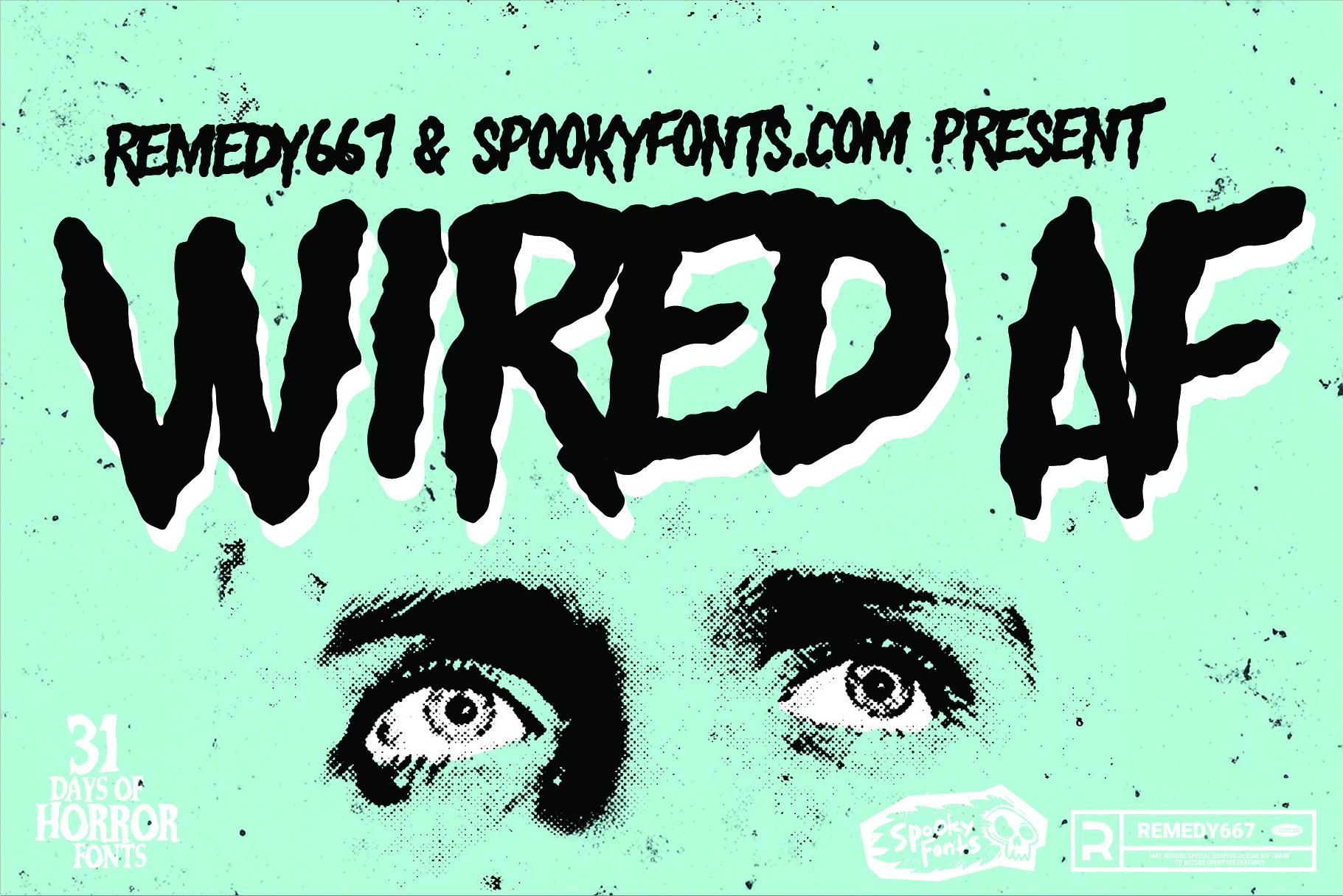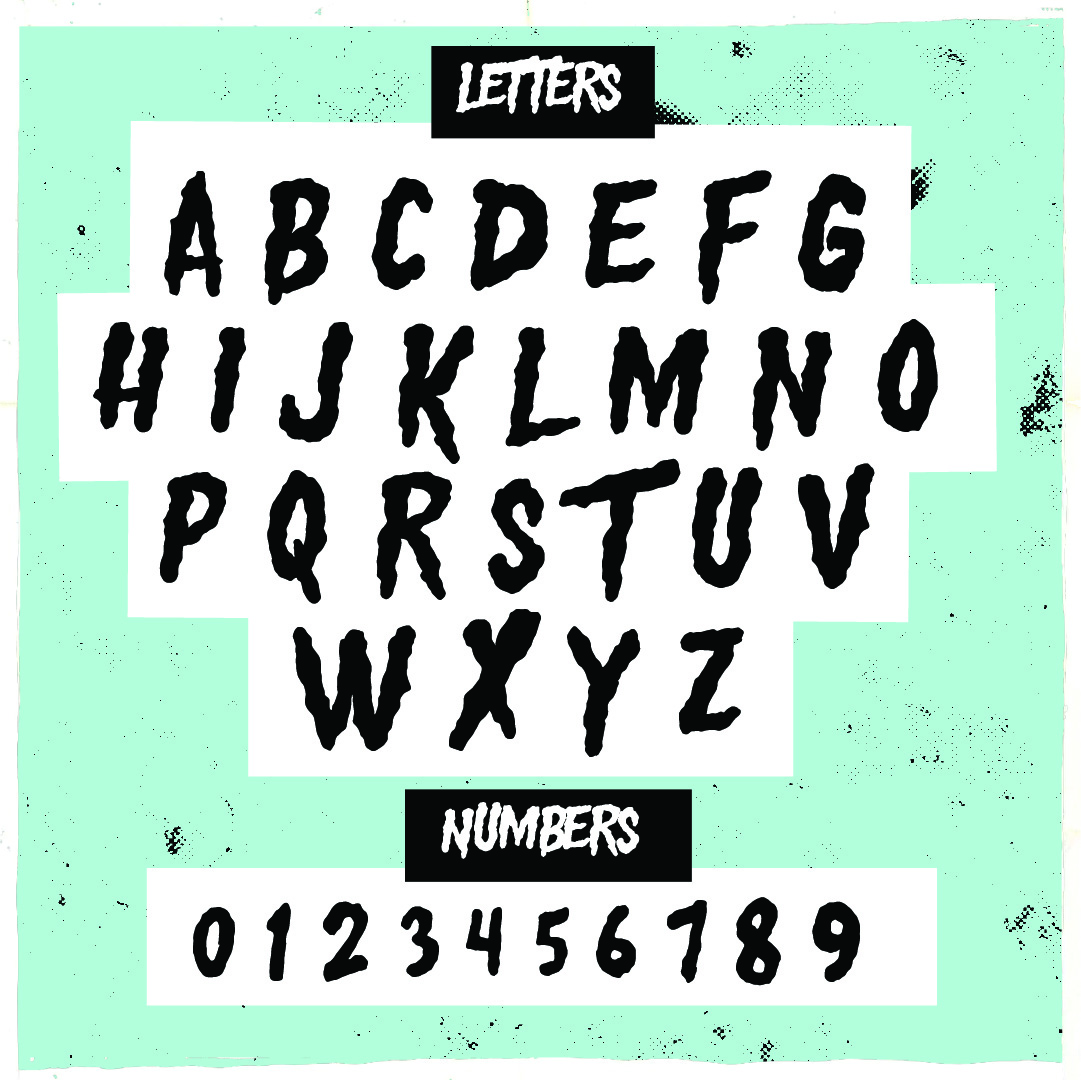
Wired AF
Punk rock meets sci-fi for bold, edgy, out of this world designs.
Introducing Wired AF, a punk rock under the influence of science fiction typeface that will give your designs a spine-tingling edge! This hauntingly unique font is perfect for those who want to make a bold statement and leave their audience spellbound. With its jagged edges, futuristic undertones, and rebellious spirit, Wired AF captures the essence of punk rock culture intertwined with the eerie allure of science fiction.
With Wired AF, your designs will scream individuality and break free from the mundane conventions of traditional typography. Each letter is meticulously crafted to embody raw energy and an otherworldly vibe that will captivate viewers’ attention like never before. Whether you’re working on concert posters, album covers, or even Halloween-themed invitations, this spooktacular typeface will add a touch of macabre elegance to any project.
Unleash your creativity with Wired AF as it blends dazzling aesthetics with an unmistakable air of mystery. Its edgy nature makes it perfect for expressing rebellion against conformity while retaining an aura that resonates with sci-fi enthusiasts. Dive into the dark abyss of this punks-meets-space adventure font and watch as your designs mesmerize audiences by speaking directly to their inner cryptkeeper!